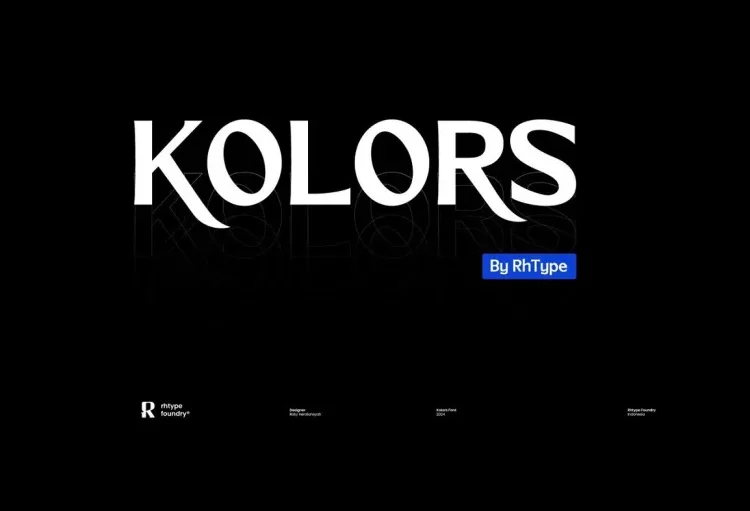
Kolors Font Family
Kolors is a dynamic sans serif display font designed to infuse energy and boldness into your projects. Perfect for sports themes and innovative designs, Kolors brings a strong visual presence with its precise and distinctive features.
This font is ideal for applications where a bold, modern look is essential, making it well-suited for sports branding, promotional materials, and any design that demands a striking and impactful appearance.